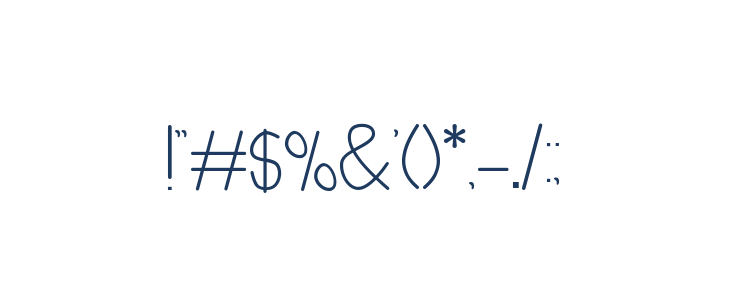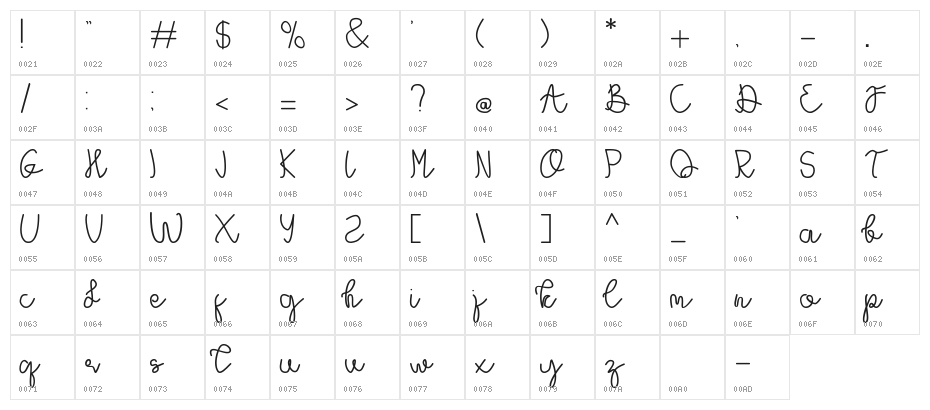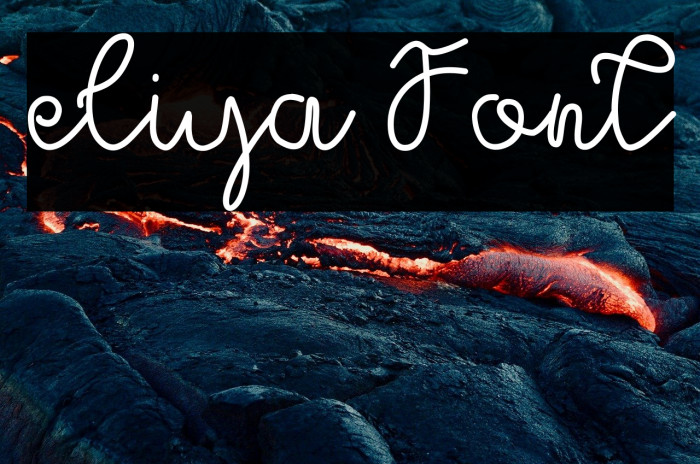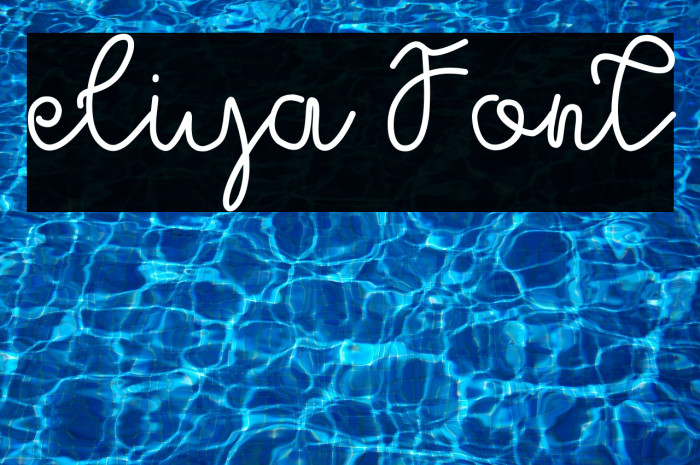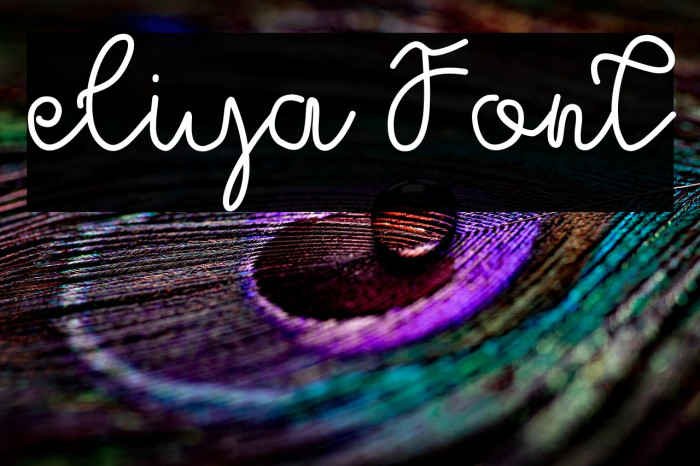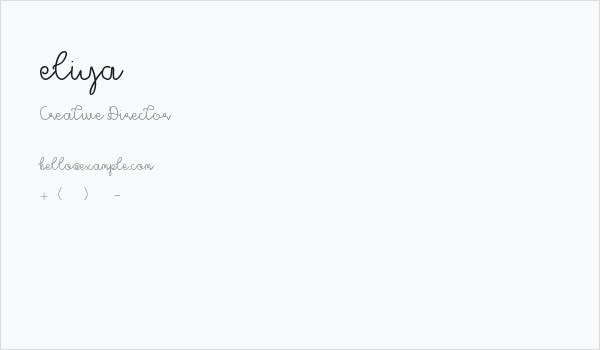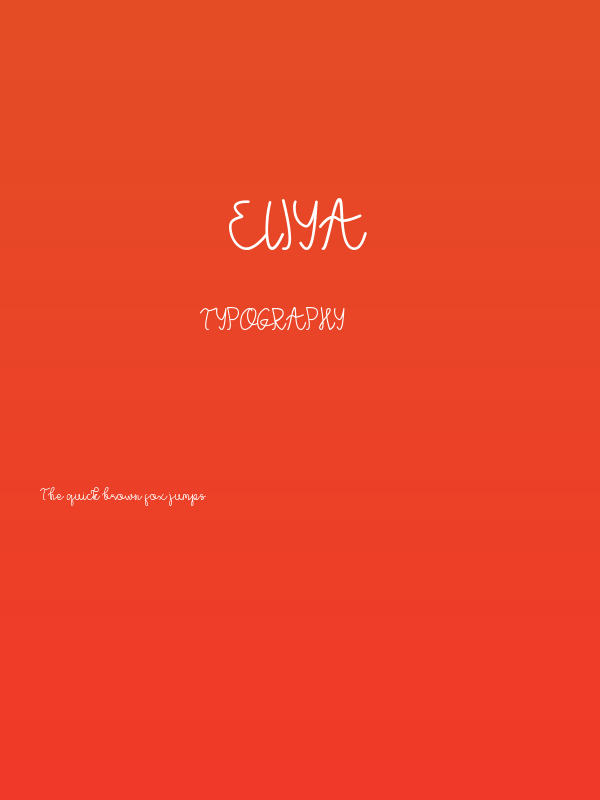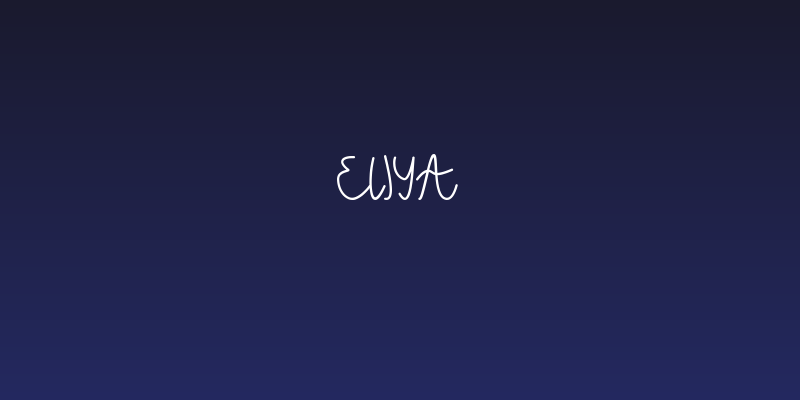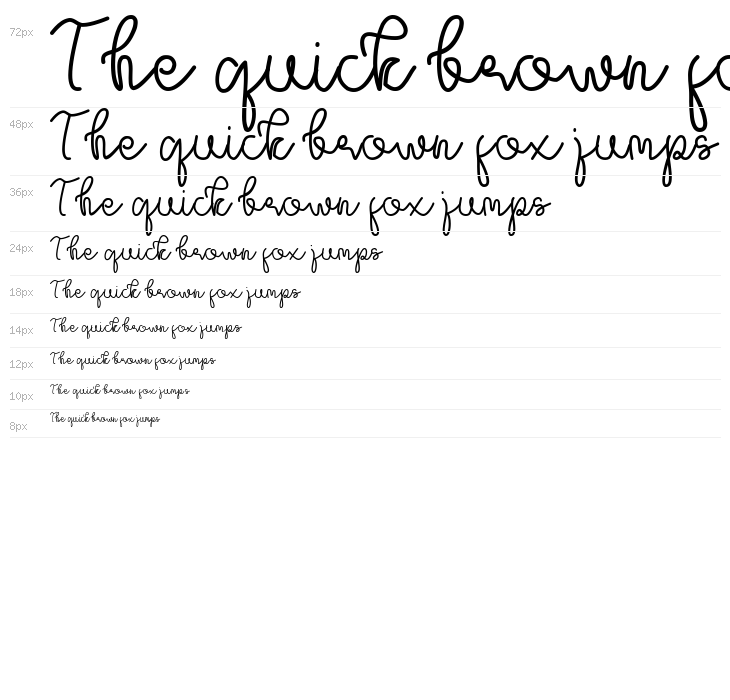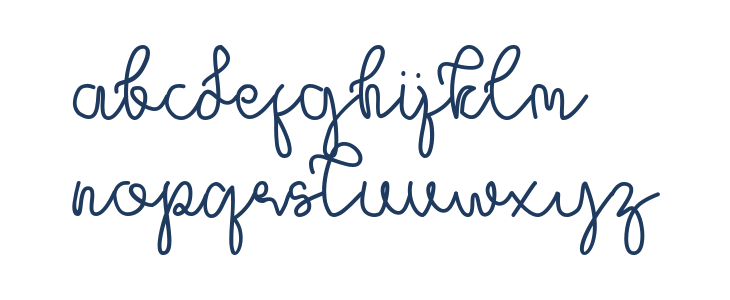
eliya Font
eliya Description
This font features a playful and whimsical handwritten style, characterized by its flowing and interconnected letterforms. The strokes are smooth and consistent, giving it a casual yet elegant appearance. The uppercase and lowercase letters maintain a cohesive look, with a slight slant that adds to its dynamic feel. The numbers and special characters are crafted with the same attention to detail, ensuring uniformity across all glyphs. This font is perfect for projects that require a personal touch, such as invitations, greeting cards, or branding materials that aim to convey warmth and approachability.
| Overall Style | Casual, Elegant |
| Proposed Projects | Ideal for invitations, greeting cards, personal branding, and creative projects. |